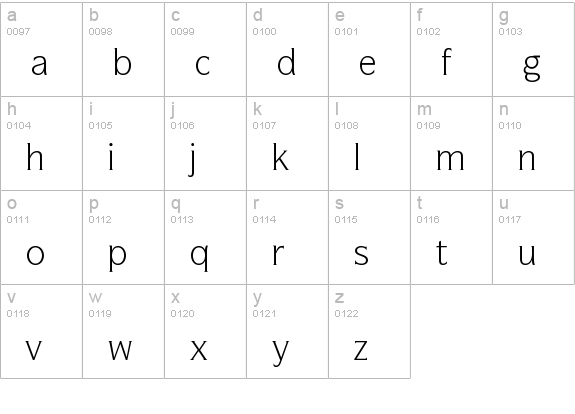
SymbolEF-Book is a comfortable, highly readable variant in the SymbolEF typeface family \xE2\x80\x94 well suited to long-form body text, articles, and editorial content.
Introducing SymbolEF-Book font, a versatile and stylish typeface that exudes elegance and sophistication. SymbolEF-Book is perfect for a wide range of design projects, from branding to editorial design and everything in between. Its sleek lines and modern aesthetic make it a standout choice for any creative endeavor. What sets SymbolEF-Book apart is not only its striking design but also its accessibility - this font is available for free download at FontsMarket.com. Now, you can effortlessly incorporate this beautiful typeface into your projects without breaking the bank. Don't miss out on the opportunity to elevate your designs with SymbolEF-Book - download it today and experience the magic for yourself.